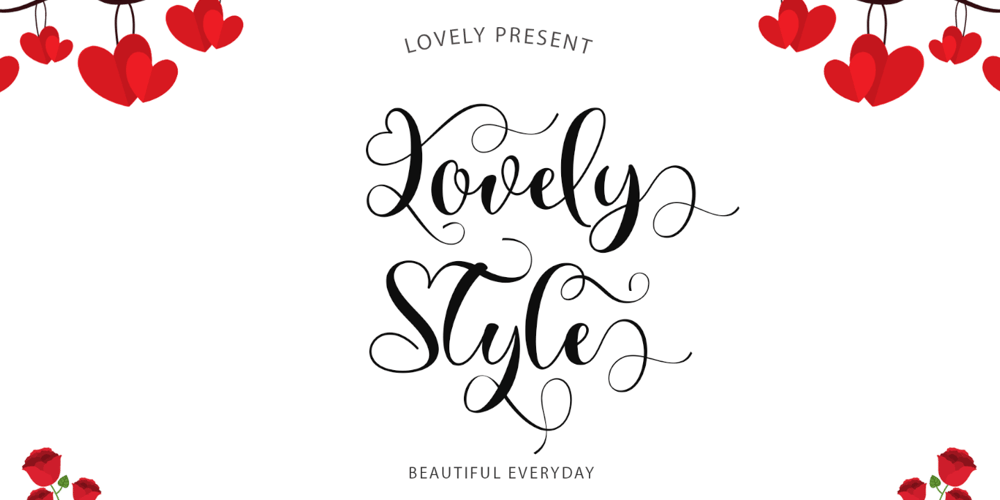
Lovely Style
Lovely Style font
Lovely Style Font Family was designed by Isroni Yoga Prasetya and published by Yoga Letter. Lovely Style contains 1 styles and family package options. “Lovely Style” is a very pretty handwritten font. This font features uppercase, lowercase, swashes, headings, uppercase alternative, lowercase alternative, binders, multilingual support, numbers, and punctuation. How to use letter decoration is very easy, and there is a guide in the preview. This font is perfect for weddings, valentines, engagements, stickers, banners, posters, invitations, Christmas, Easter, romantic moments, quotes, and more.